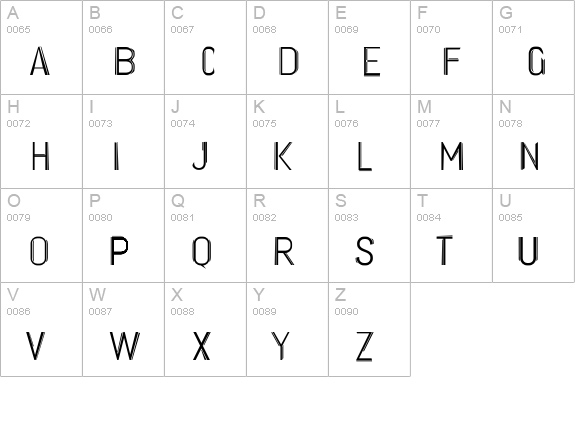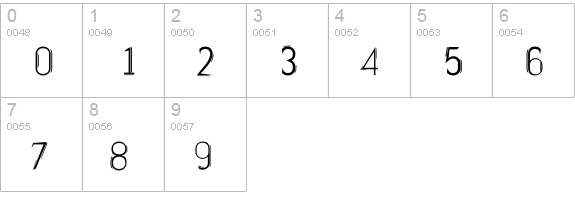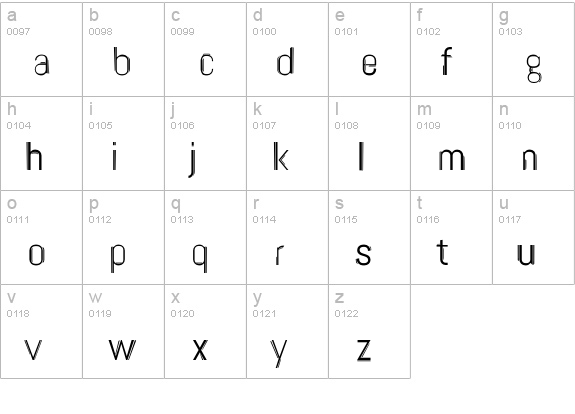
Twin Liner Font Font Details
Twin Liner Font is a free for personal use font in the Fancy > Decorative category, designed by Boldfonts. It has been downloaded 29 times and is available for Windows, Mac and Linux.
The Twin Liner Font is a unique and modern typeface that combines sleek lines with a bold aesthetic, making it perfect for a wide range of design projects. This font features clean and sharp edges, giving it a crisp and professional look. With its twin-line design, this font adds a dynamic and eye-catching element to any text or headline.